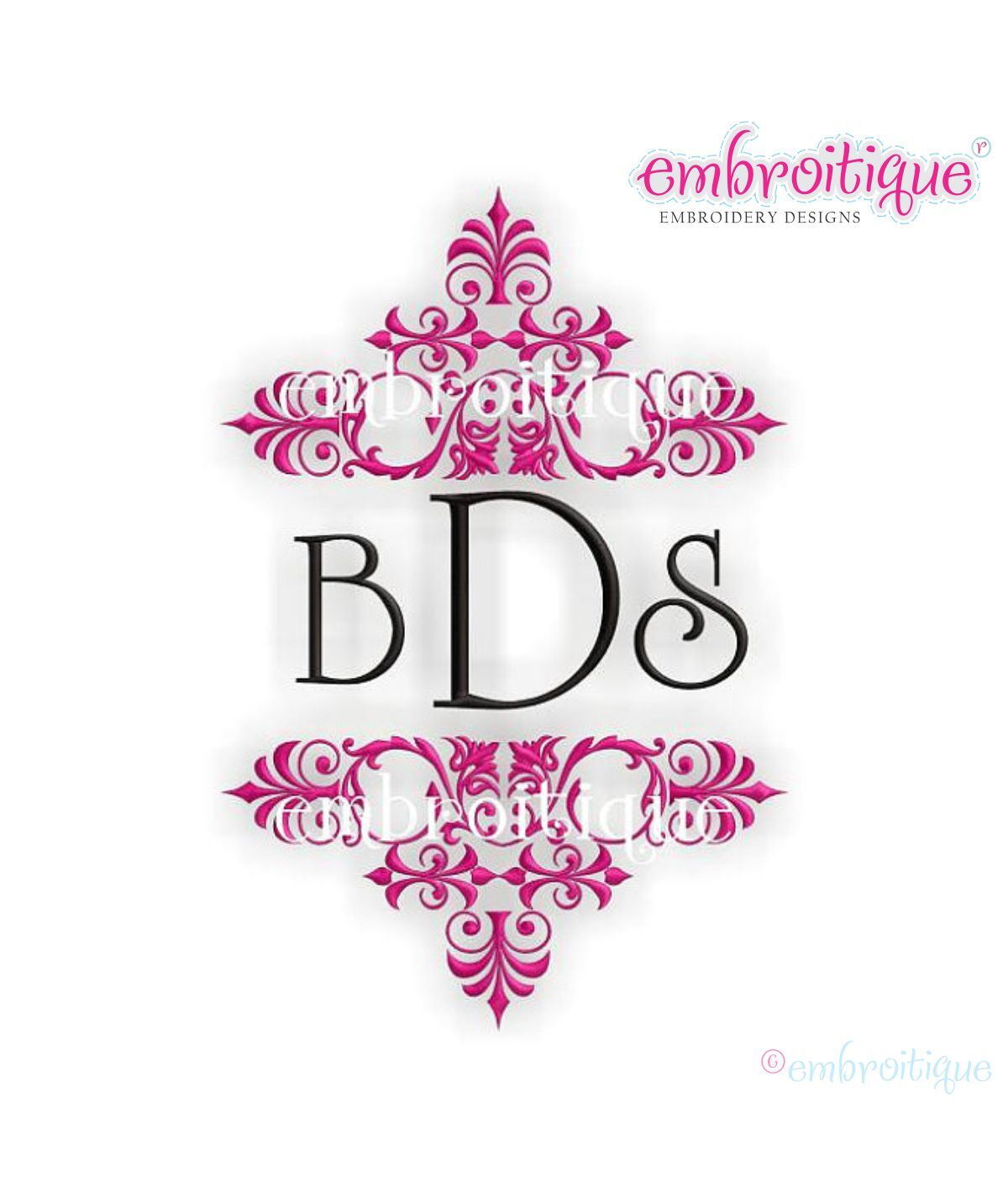
Monumenta Monogram Font Frame
This ultra classy font frame has endless possibility. Pillows, towels, totes, you name it! Anything will be beautiful with this chic font frame.
The font featured is our Jacob font.